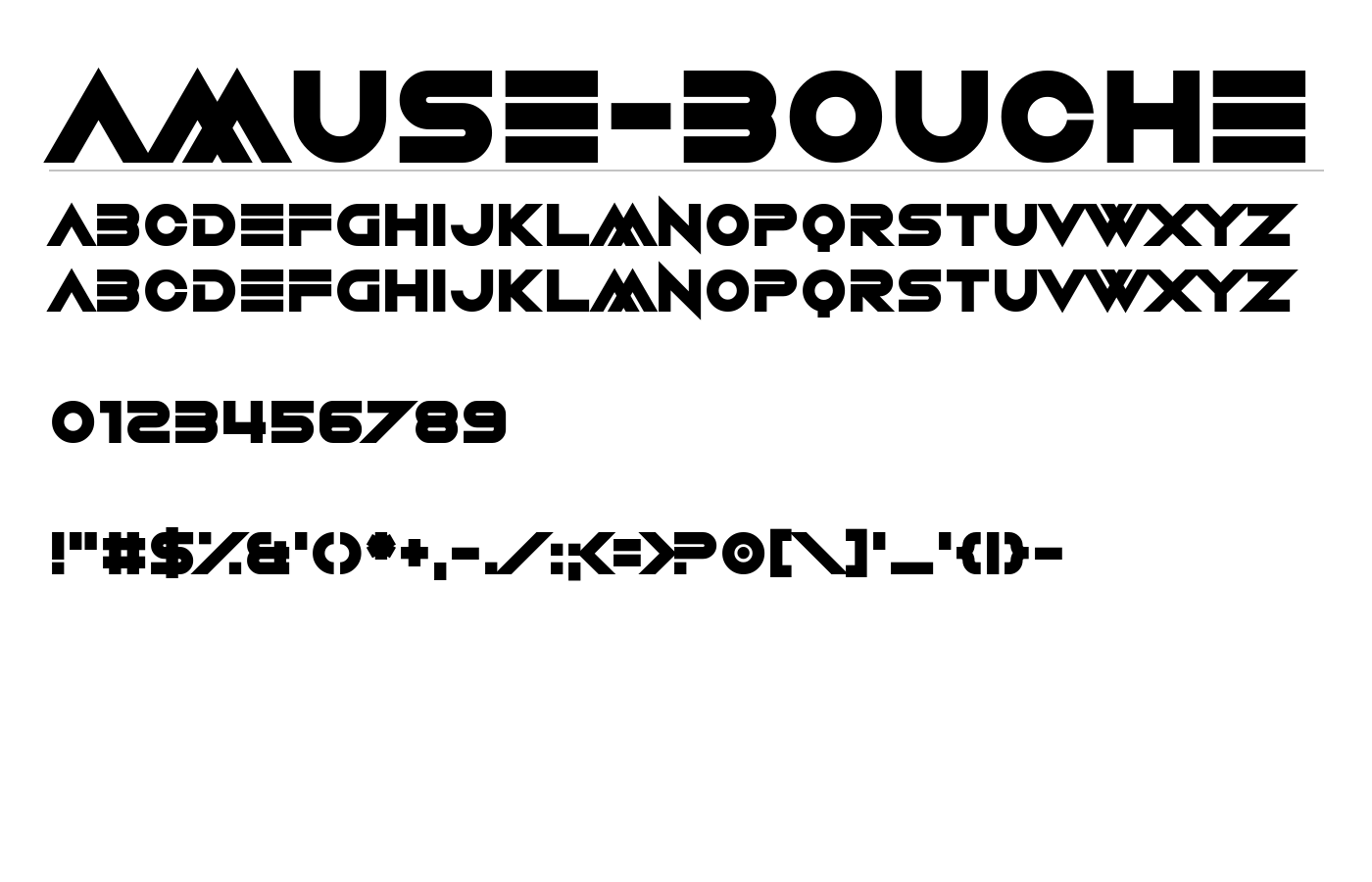
Amuse-Bouche is a bold, geometric sans serif font with a futuristic and playful vibe. Its strong, blocky shapes and unique stylistic cuts create a distinctive look that works well for eye-catching headlines, logos, and modern branding. This font is perfect for projects seeking a bold, contemporary feel with a touch of creative energy.
Amuse-Bouche Font
About Amuse-Bouche Font
| Font family | Amuse-Bouche Font |
| Designer | Allison James |